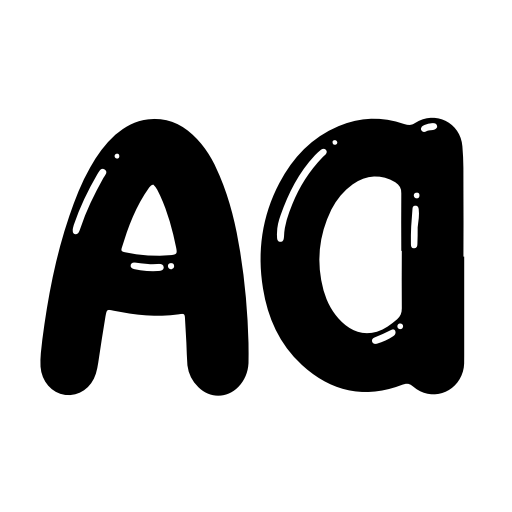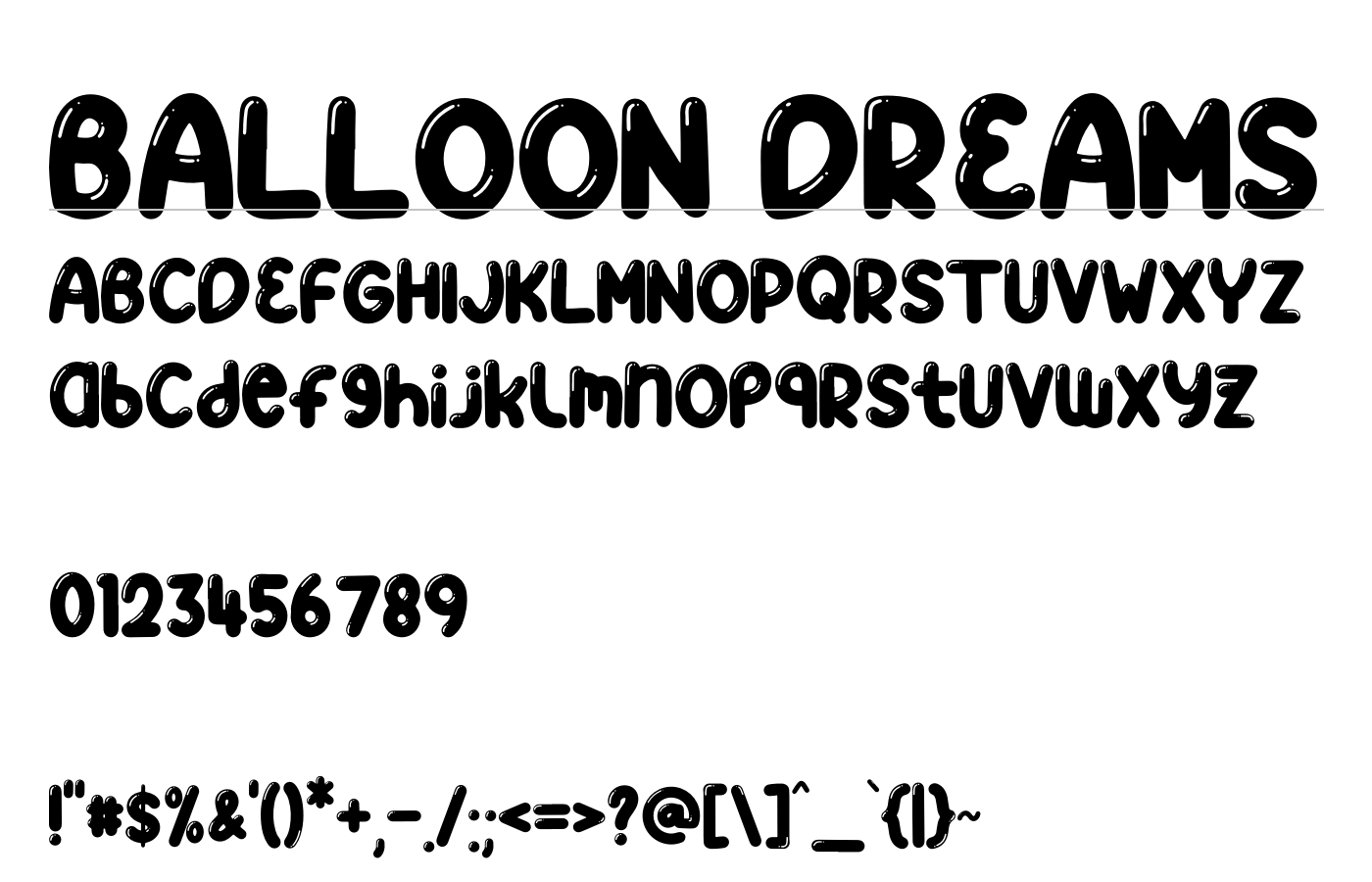
Balloon Dreams is a playful, rounded sans serif font with a bold, bubbly appearance that evokes a fun and friendly vibe. Its thick strokes, smooth curves, and whimsical shapes make it ideal for children's designs, casual branding, and lively headlines where an inviting and cheerful tone is desired. This font works best in creative projects like posters, packaging, and logos looking to convey joy and approachability.
BALLOON DREAMS Font
About BALLOON DREAMS Font